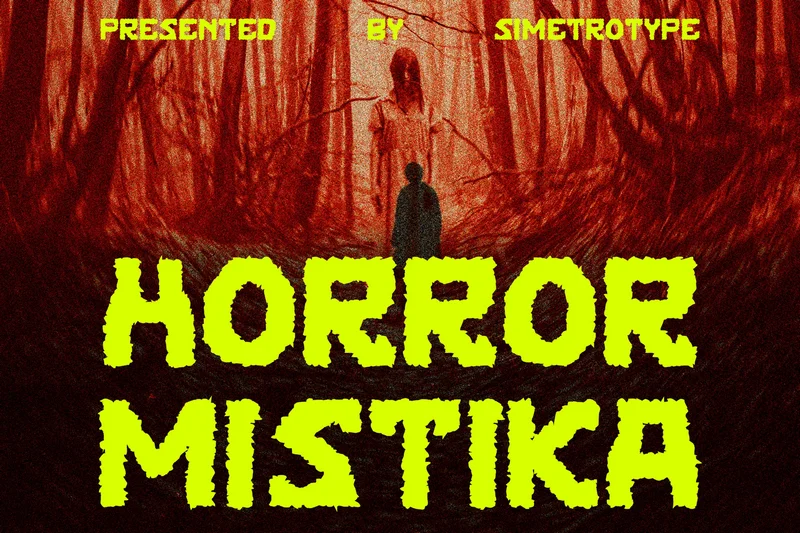
Horror Mistika – Bold and Scary Display Font
Horror Mistika is a bold and scary display font crafted for horror-themed visuals. Its rough, torn edges mimic decayed flesh and eerie mist perfect for movie posters, spooky titles, haunted house branding, thriller book covers, and nightmarish designs. This font radiates unease and cinematic tension, making every word look like it crawled straight out of a dark forest or cursed VHS tape. Whether you’re creating a psychological horror cover or a vintage slasher poster, Horror Mistika adds that disturbing, cinematic punch that instantly sets the mood.